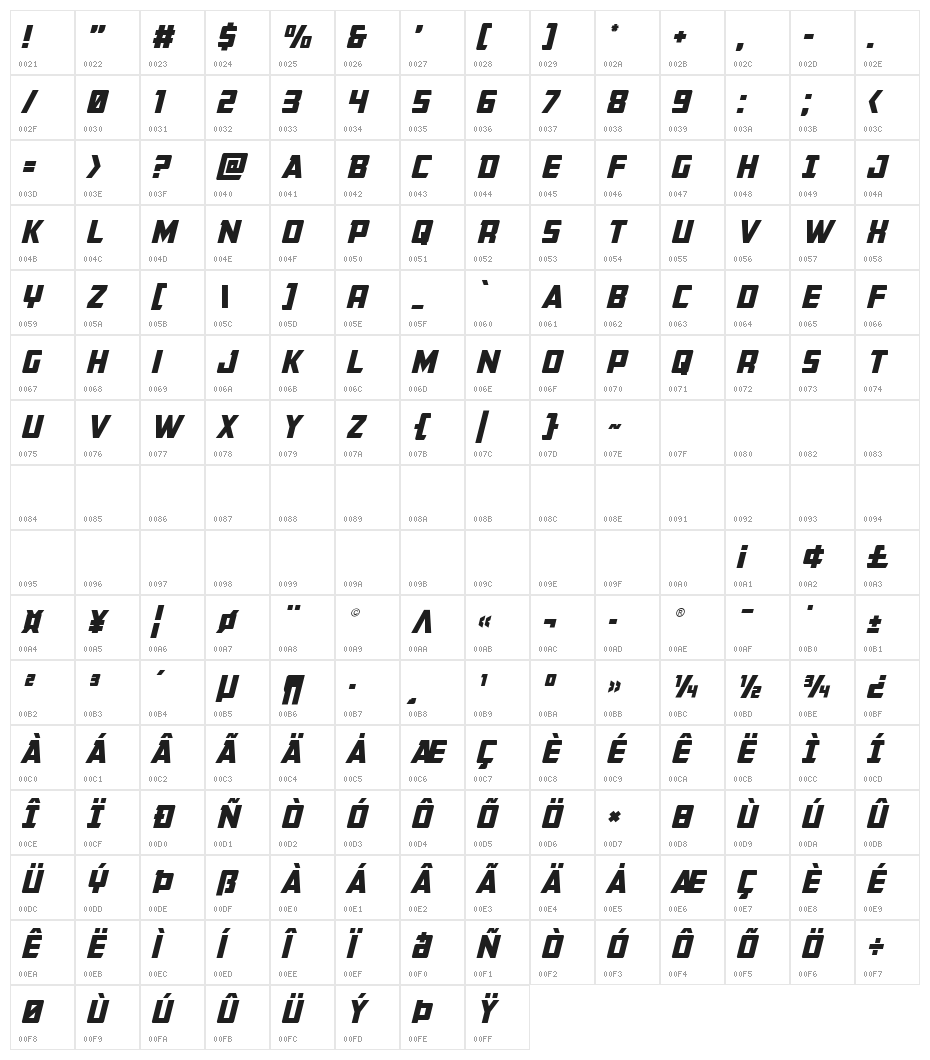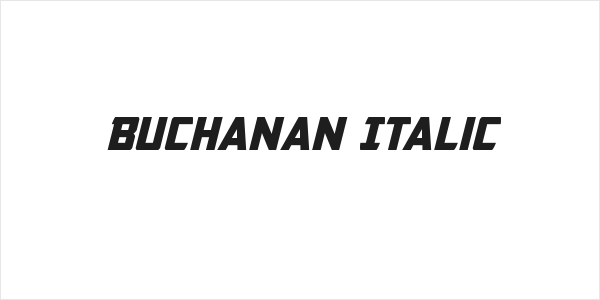
Buchanan Italic Font
Buchanan Italic Description
This font features a bold and dynamic italic style, characterized by its strong geometric shapes and angular lines. The letters are slanted, giving a sense of motion and energy. The uppercase and lowercase characters maintain a consistent style, with sharp edges and a modern aesthetic. The numerals and special characters are designed to match the overall bold and italicized look, making them stand out prominently. This font is ideal for projects that require a strong visual impact and a contemporary feel.
| Proposed Projects | Ideal for sports branding, dynamic posters, modern advertising, and impactful headlines. |